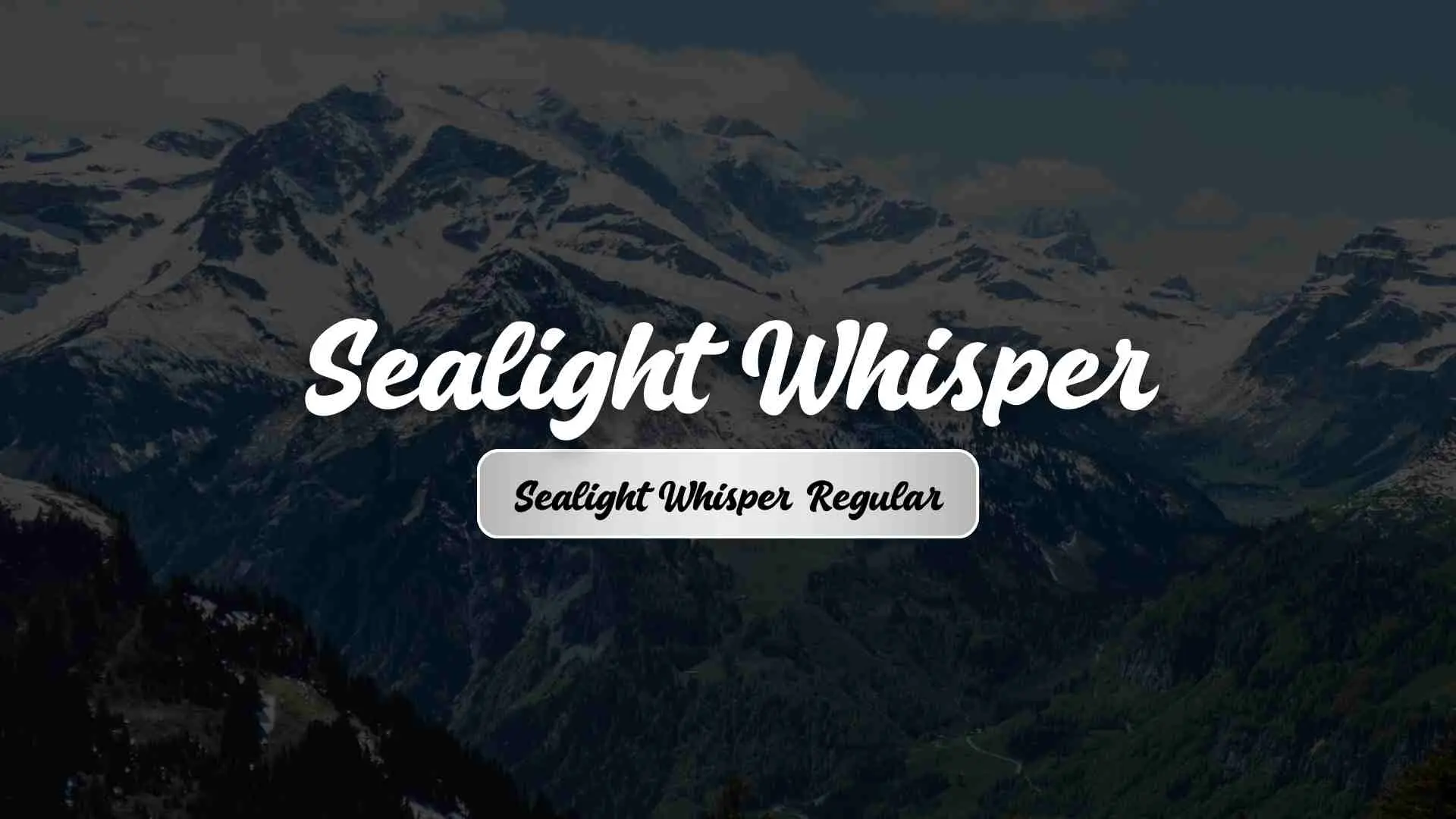
The font Sealight Whisper Regular, designed by BlackFridayFont FMF, falls under the Handwritten, Script category & Sealight Whisper font family. Its smooth, flowing letterforms make it a versatile choice for projects that require both elegance and readability. Sealight Whisper is particularly well-suited for Branding, Logo, Beauty Product Packaging, Social Media Graphics and Posts and Invitations and Stationery. With its balance of simplicity and decorative appeal, this font brings a polished touch to both personal and professional designs.